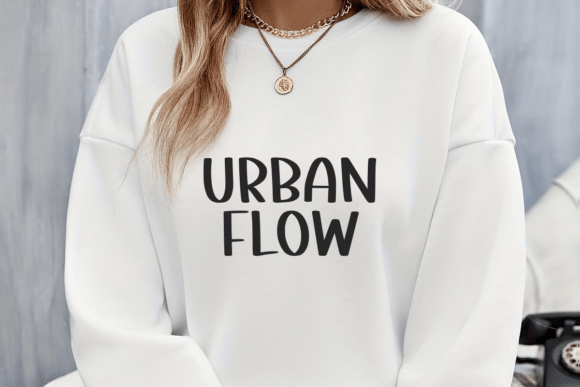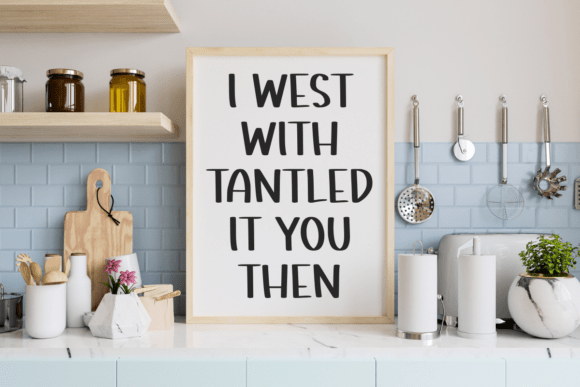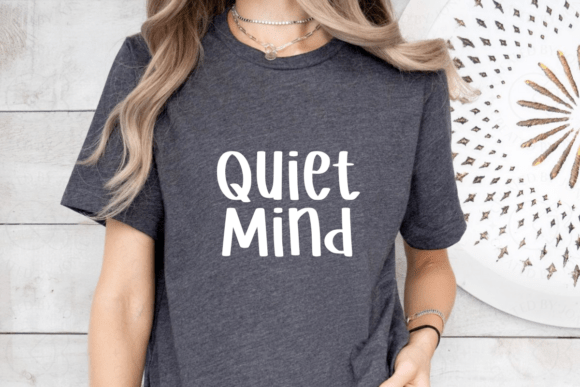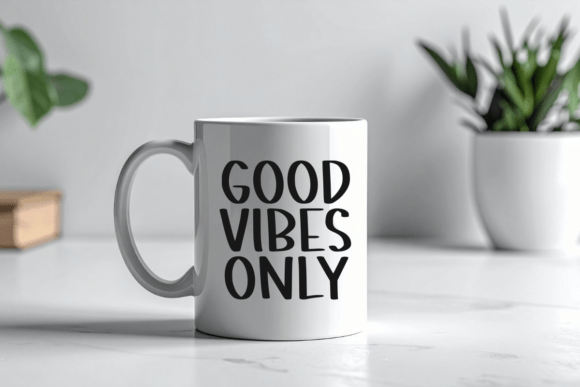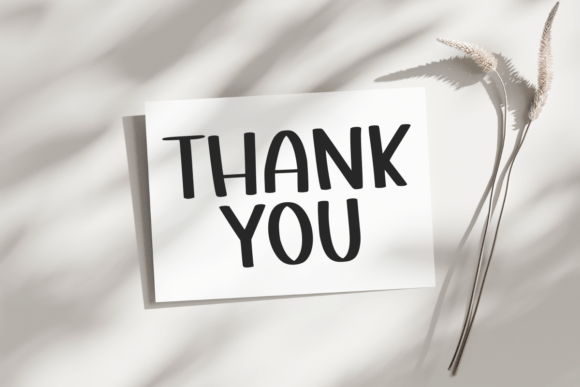
Introduction to Inner Thought Font
Have you ever been in the middle of a creative project, surrounded by colorful pens, scissors, and glue, when suddenly a spark of inspiration hits you? For many designers, this is the moment when the perfect font comes to mind – a font that captures the essence of handmade charm and warmth. For those designers, we have some exciting news: the Inner Thought Font is here to bring your creative projects to life.
This delightful handwriting font is more than just a design resource – it’s a high-quality tool that will elevate your work to new heights. With its soft, friendly, and natural look, the Inner Thought Font is perfect for craft projects, planners, stickers, and kids’ worksheets. Its simple strokes and smooth curves make it a joy to work with, and the best part? It’s available as a free download with a transparent background, making it easy to integrate into your designs.
Key Features of Inner Thought Font
- Includes a range of unique, intricate glyphs and symbols to add depth to your designs.
- Features a transparent background, making it easy to customize and integrate into your project.
- Perfect for designers looking for a distinctive, creative font to elevate their projects.
- Includes a comprehensive character set, including international characters and punctuation marks.
Honest Review: Inner Thought Font
As a designer, I’m always on the lookout for high-quality design resources to elevate my creative projects. The Inner Thought Font is one such find that I’d like to share with you.
What works well: ✨ The Inner Thought Font has a unique, hand-drawn feel that adds a personal touch to any design. The font is available for free download, making it an excellent choice for designers on a budget. The transparent background option allows for seamless integration with any background image or color.
- High-quality design: The Inner Thought Font is carefully crafted to provide a professional finish.
- Transparent background: Easy integration with any design element.
Limitations: ⚠️ While the Inner Thought Font is a great addition to any design arsenal, it may not be suitable for projects requiring a more formal, corporate look. Additionally, the font’s hand-drawn nature may not be ideal for designs requiring precise typography.
Overall, I’m impressed with the Inner Thought Font’s unique character and versatility. It’s a great choice for designers working on creative projects that benefit from a personal touch. Give it a try and see how it can elevate your designs!